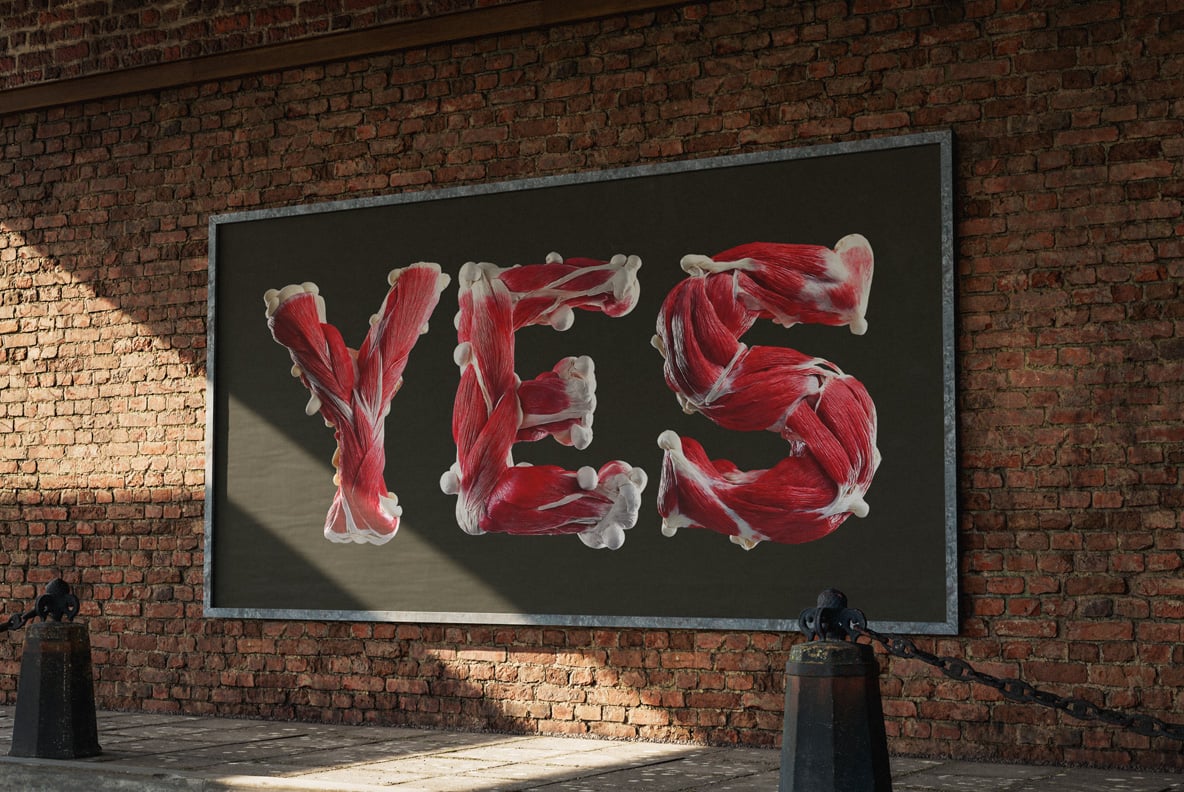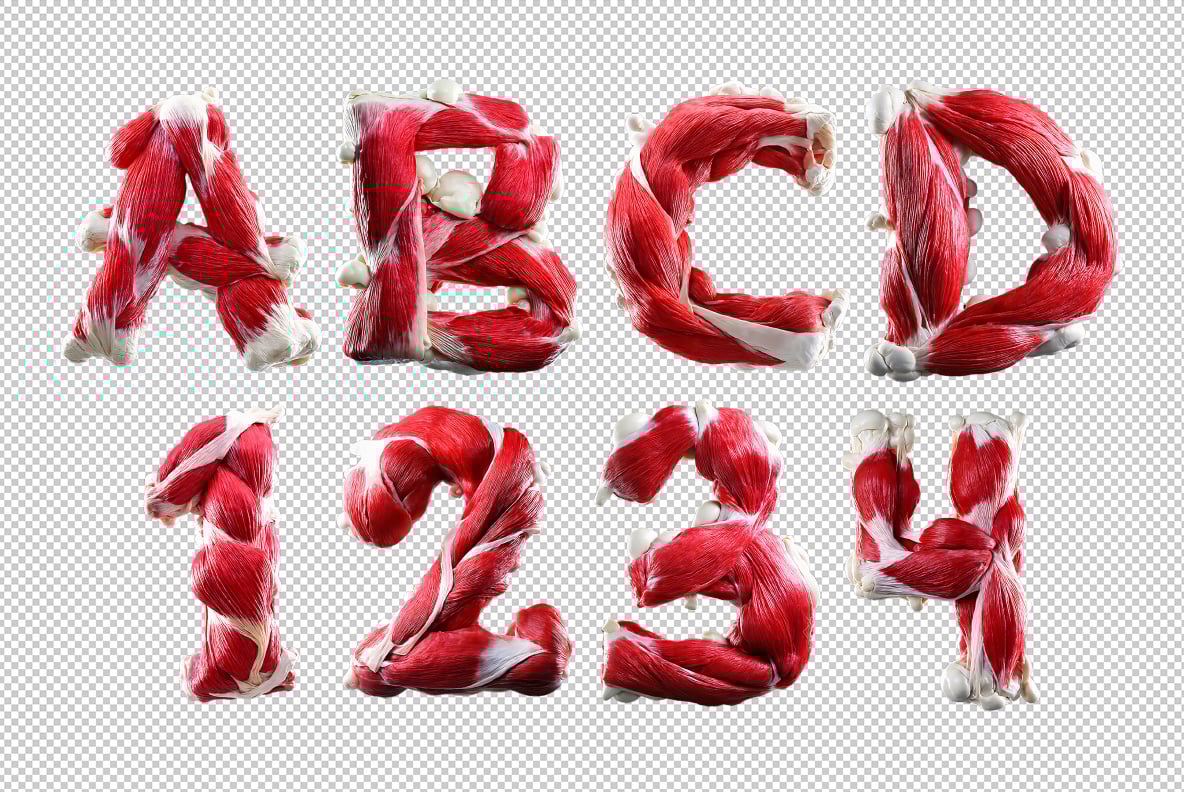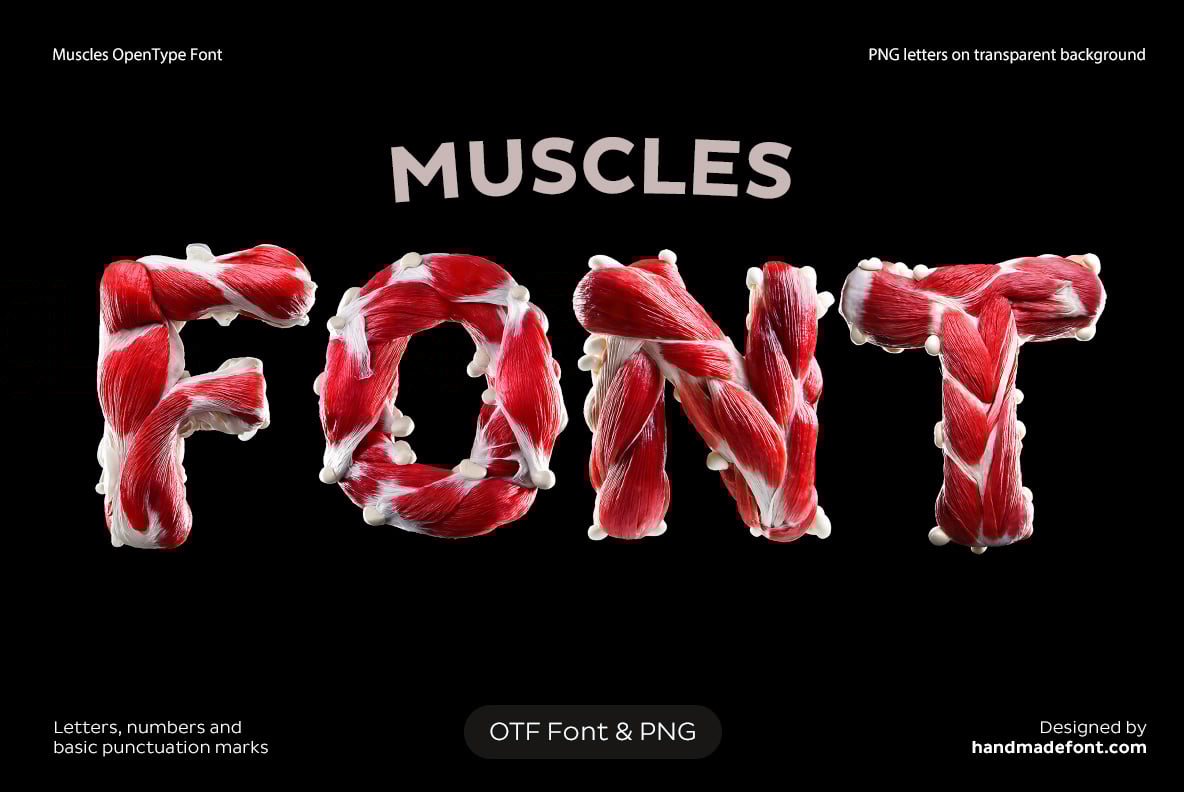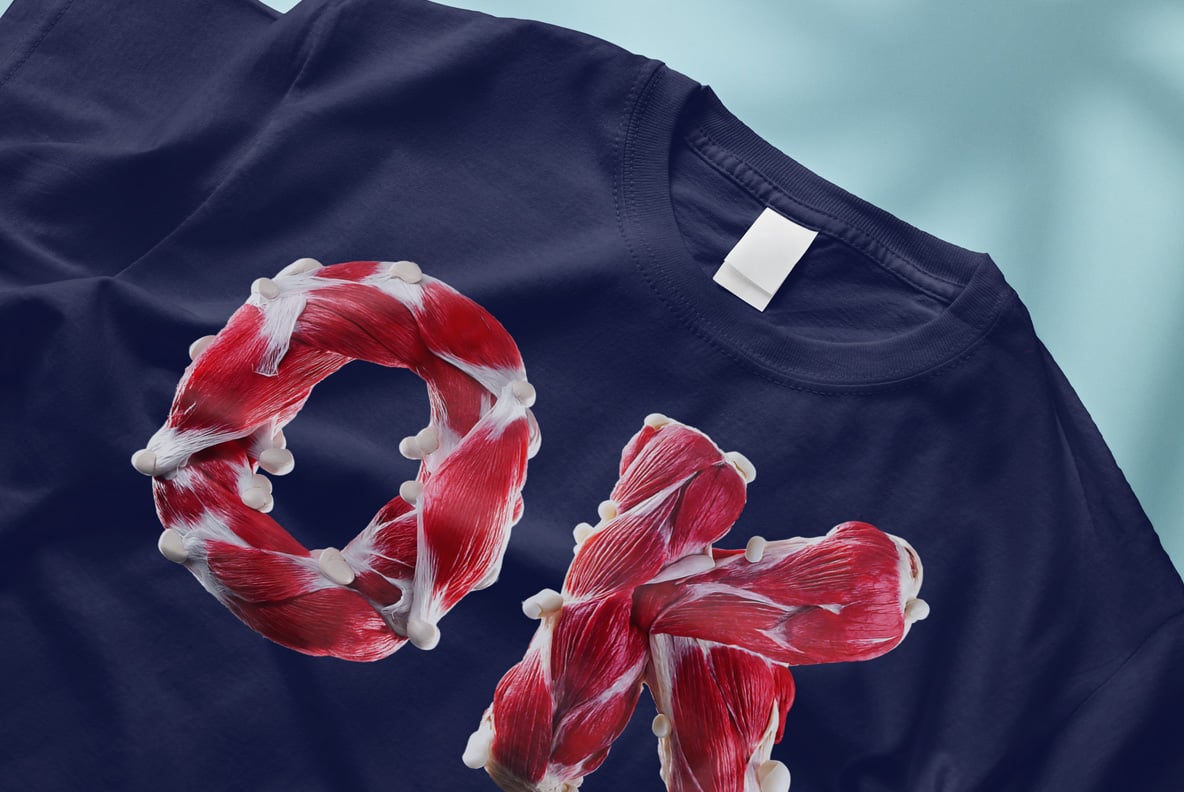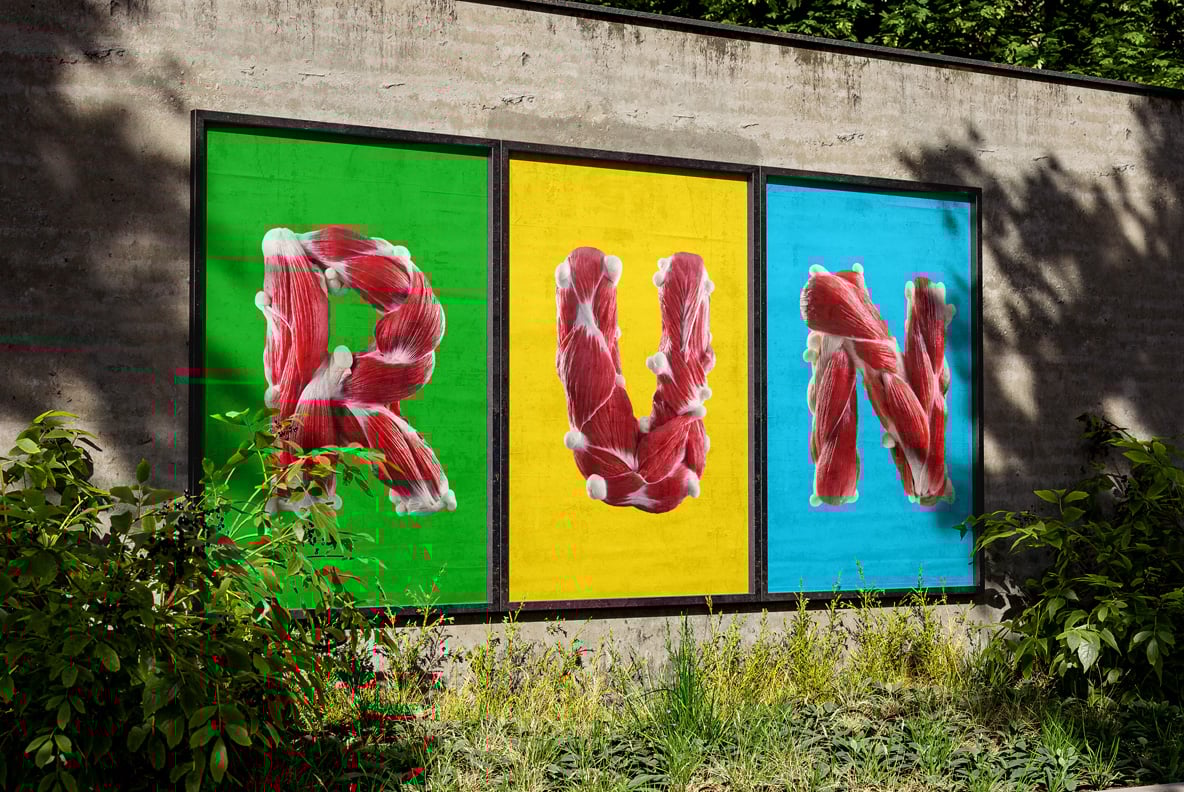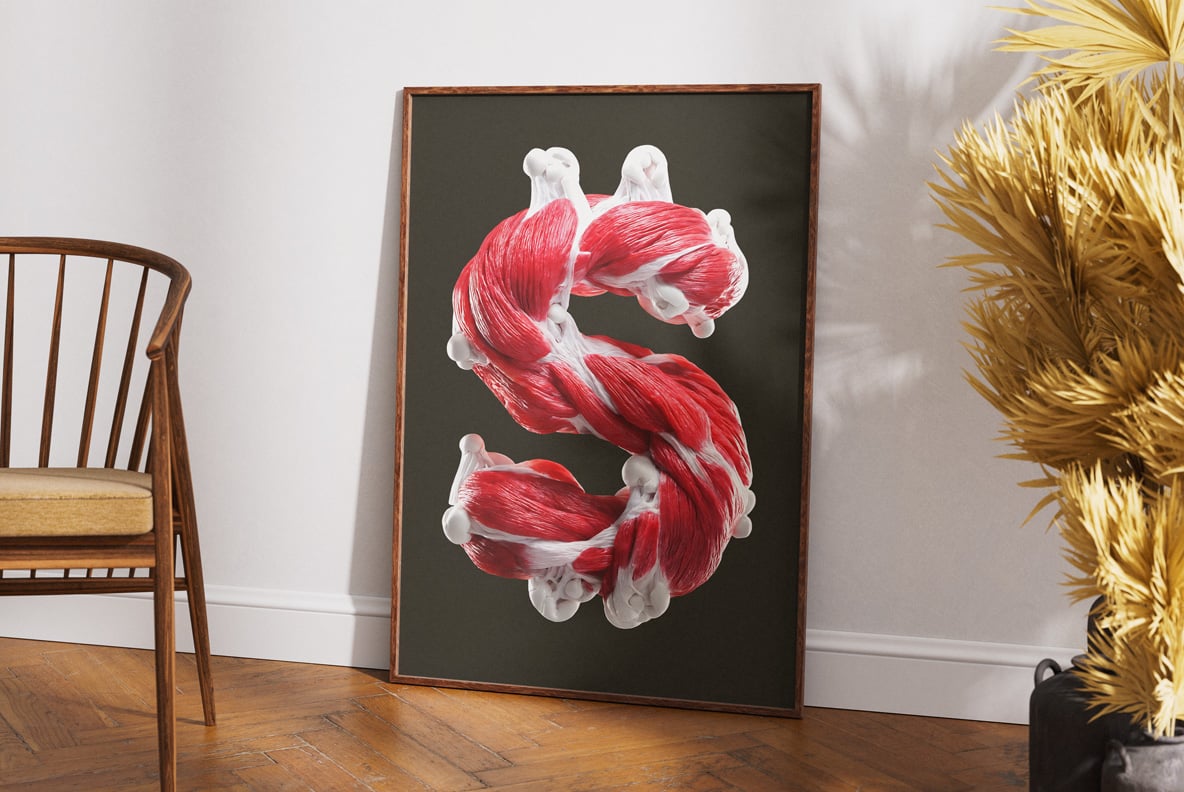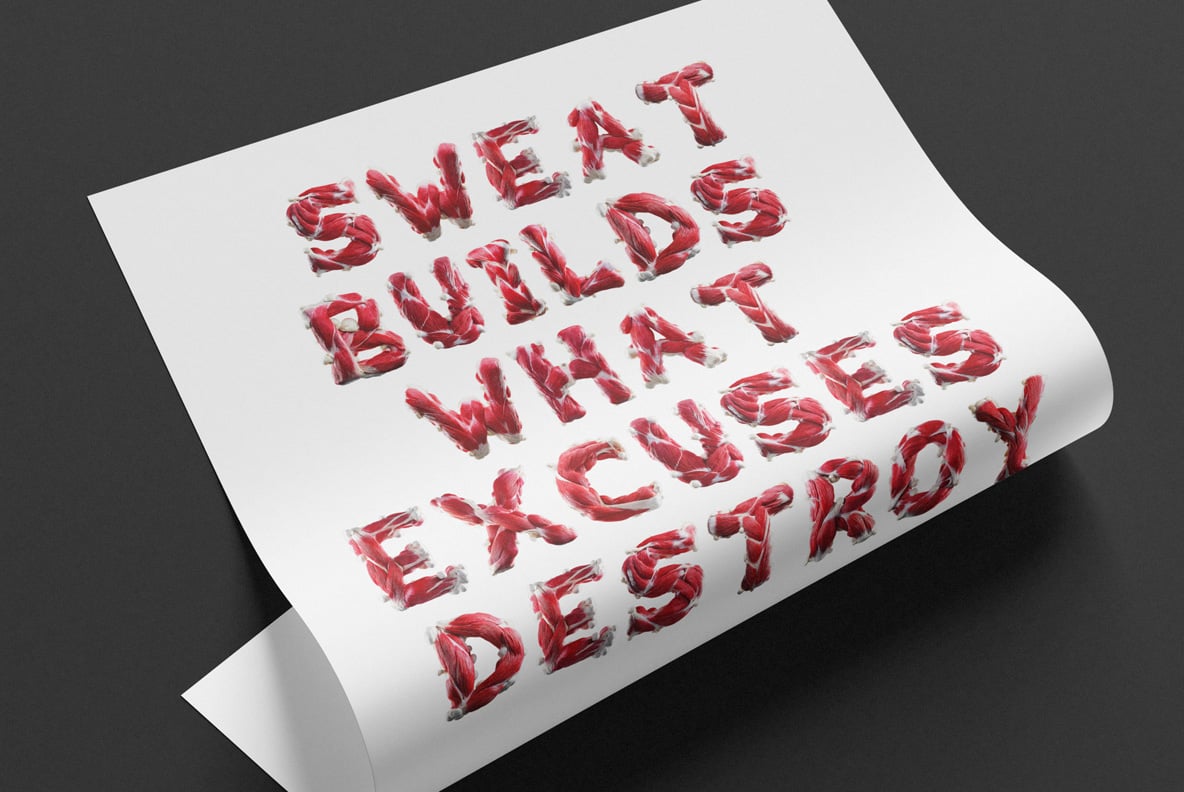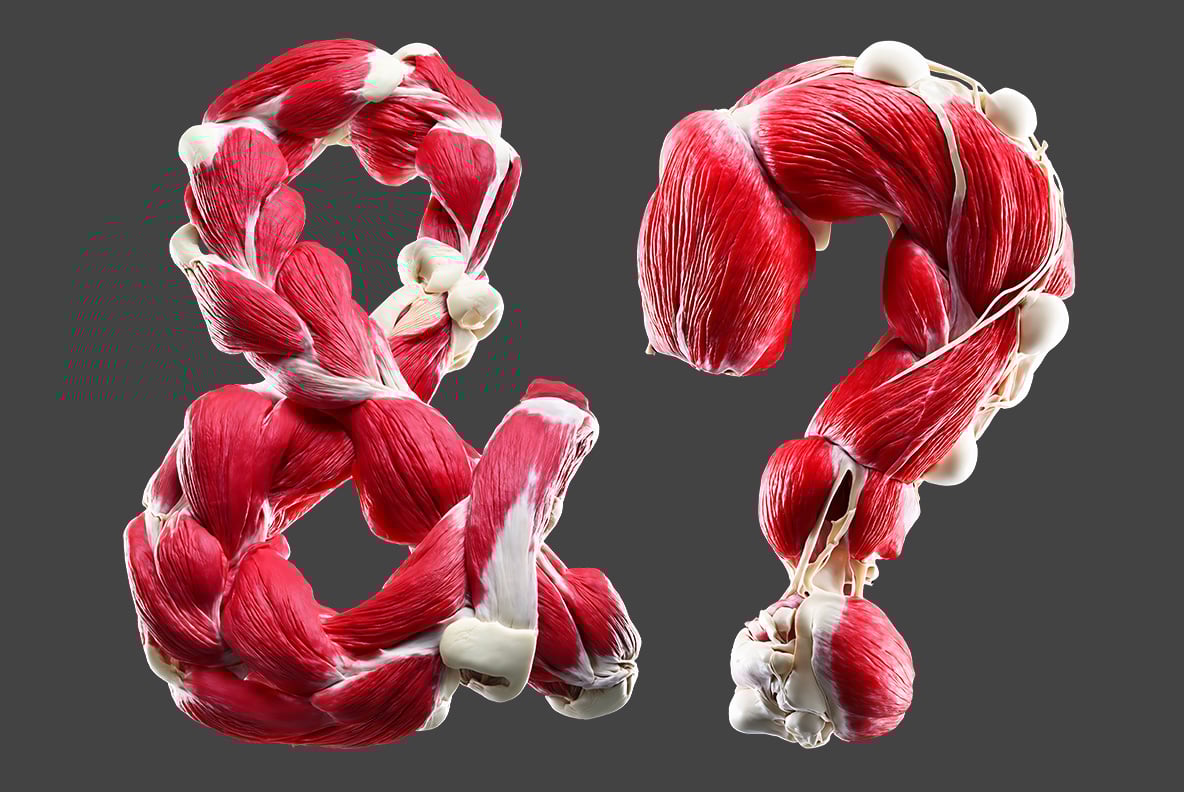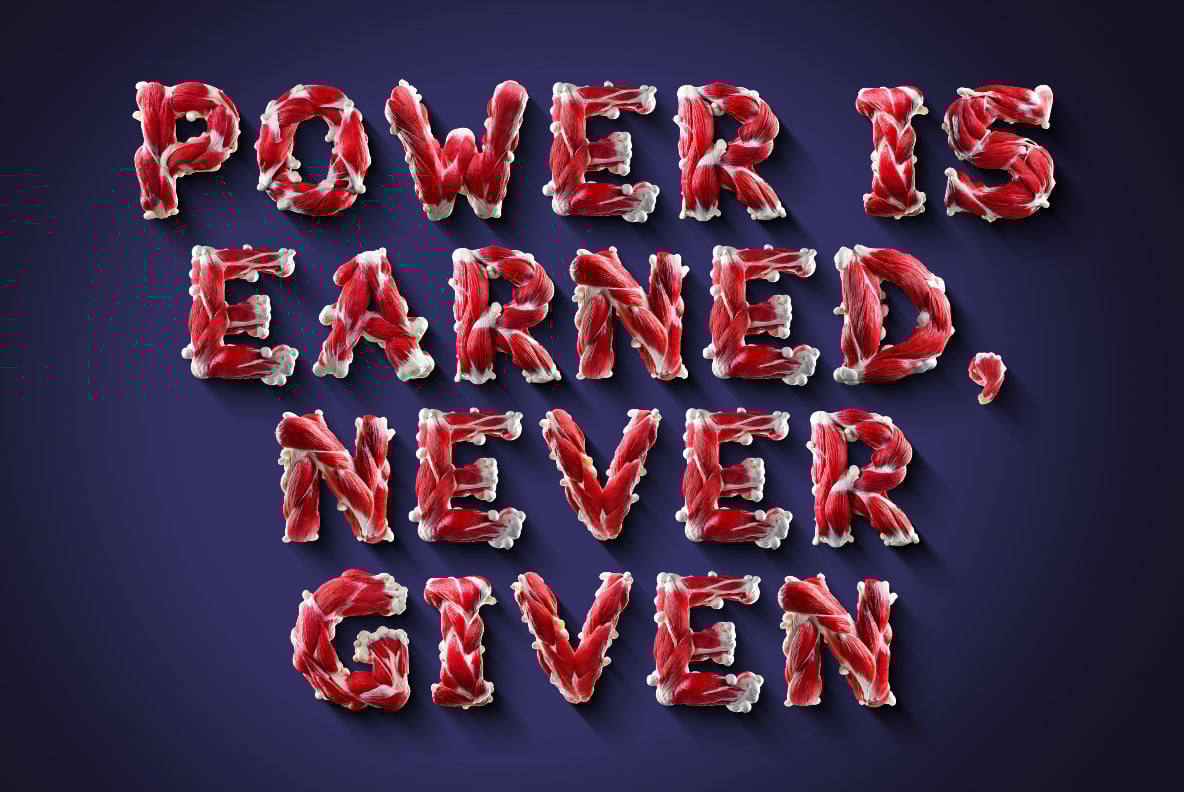
Muscles Font
Power of the human physique comes alive in **Muscles Font**—a bold, creative typeface where each letter is sculpted from lifelike muscles. From biceps to quadriceps, every curve and line showcases strength and fitness, celebrating the anatomy of power. Perfect for fitness branding, bodybuilding events, gym promotions, or any project that demands a striking, high-energy vibe. Let pectorals, deltoids, and glutes shape your words, turning your message into a visual statement of raw strength and determination.